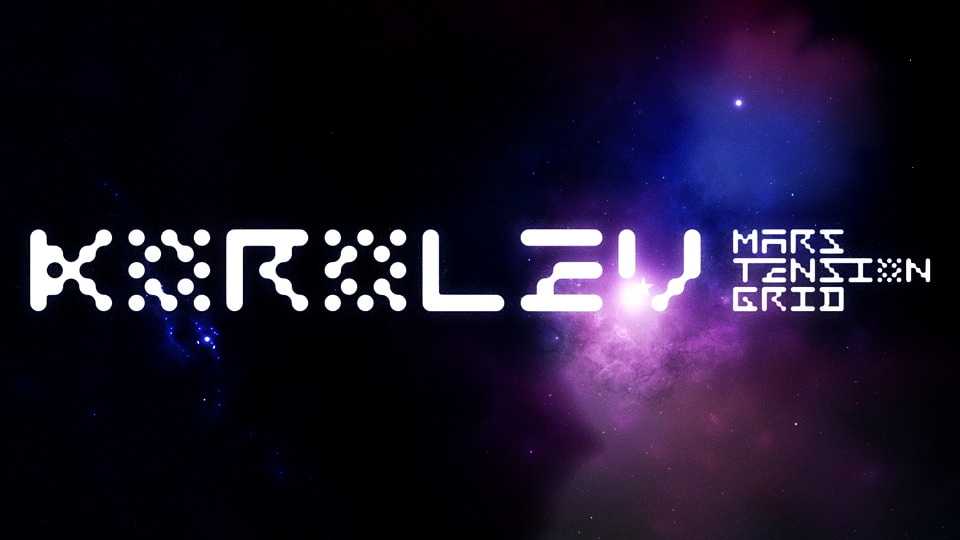
Download Korolev font, a space inspired display font that gives minimalist and futuristic impression. Geometric and gridded, with a solid sci-fi techno feel, Korolev font is perfect for tech design, games, movie posters, logos and so on.